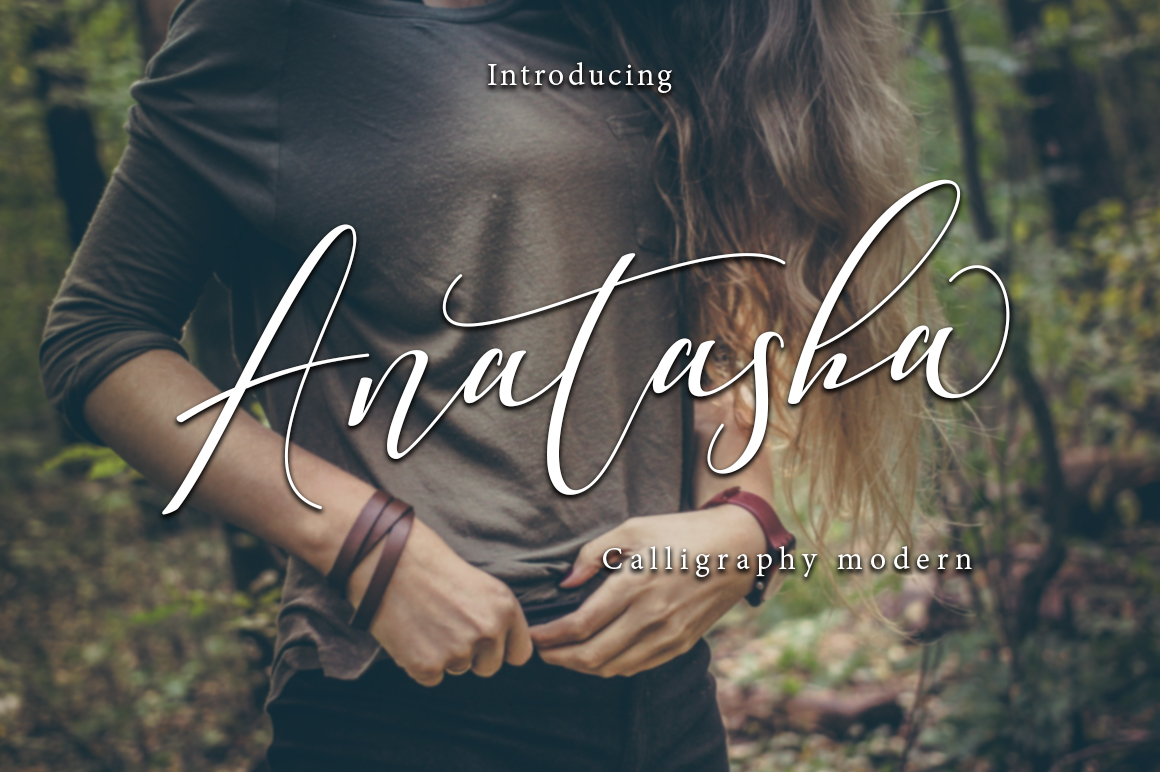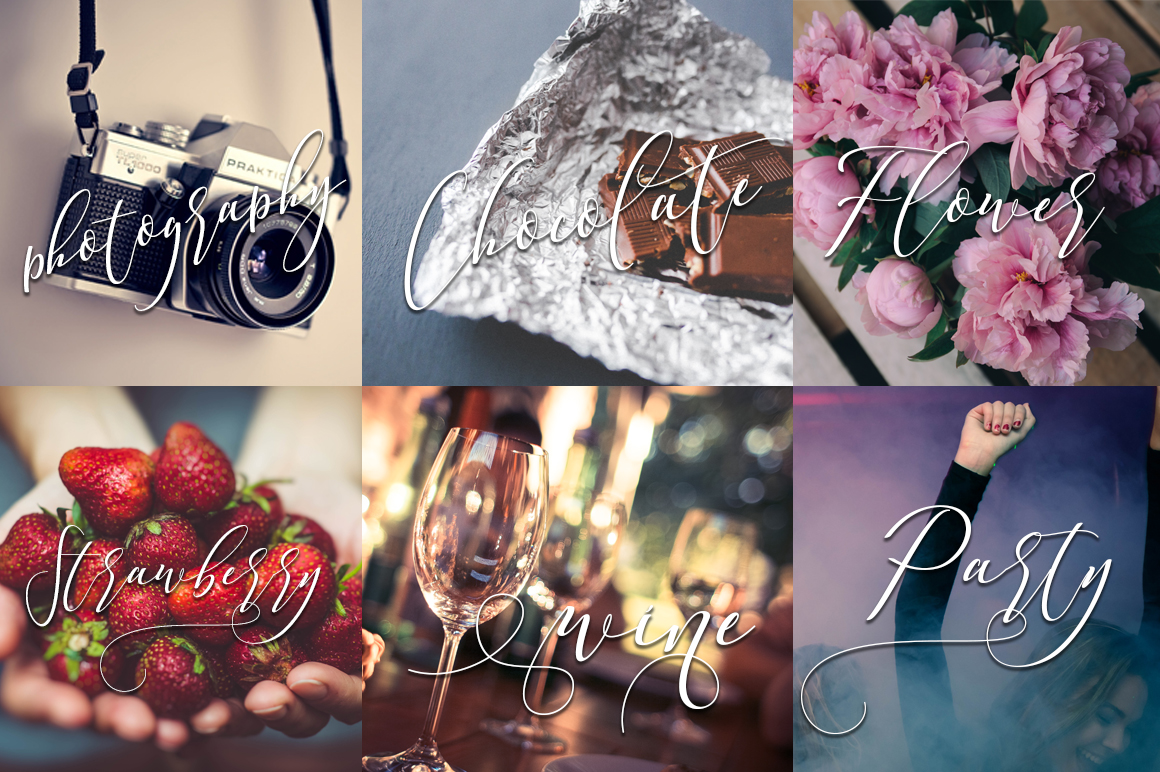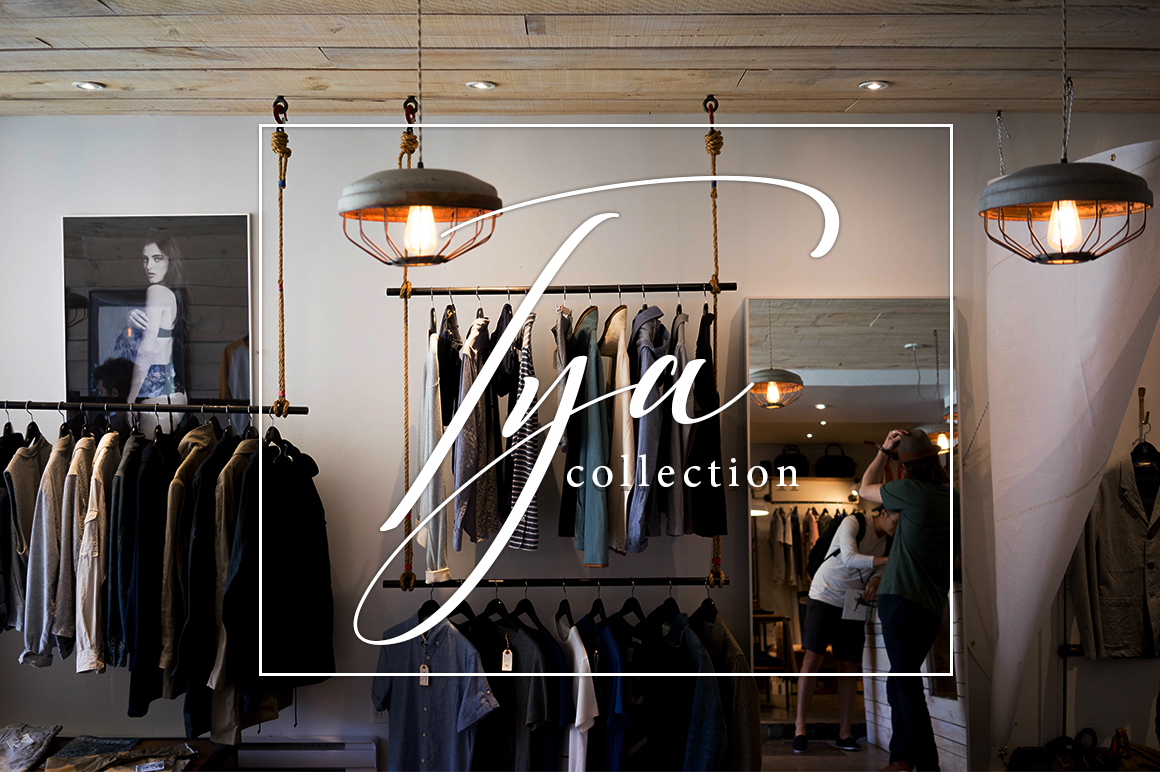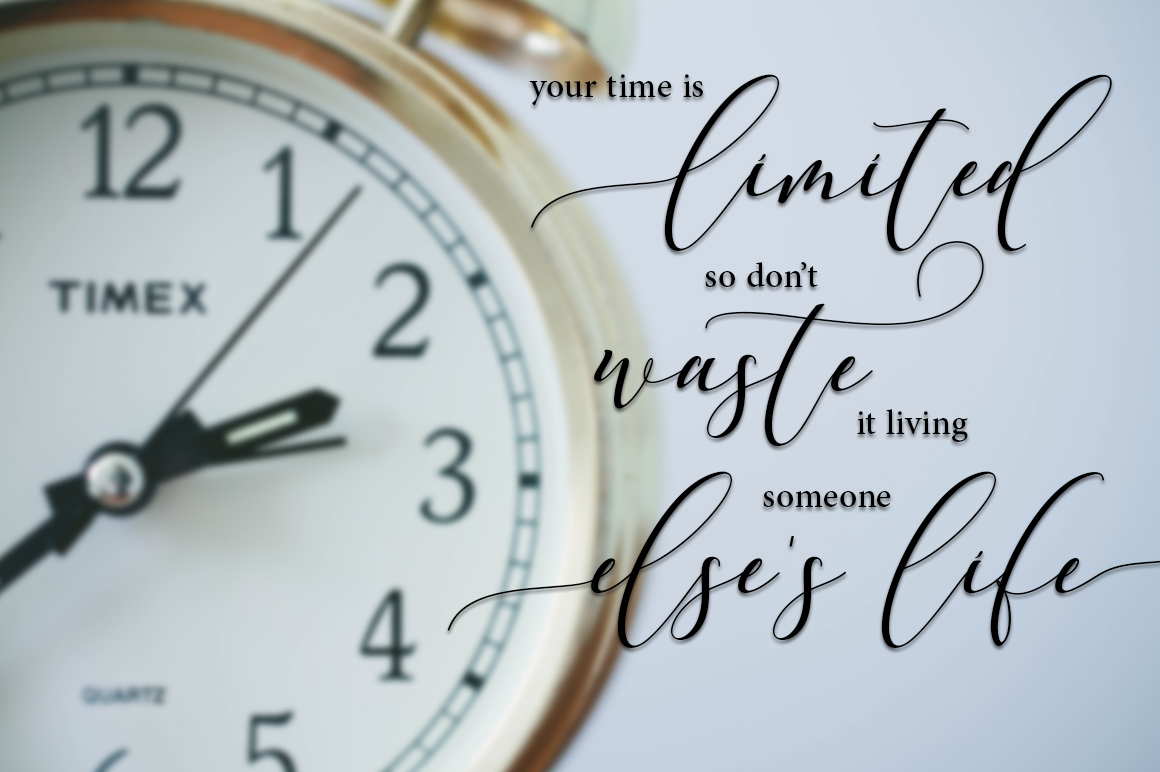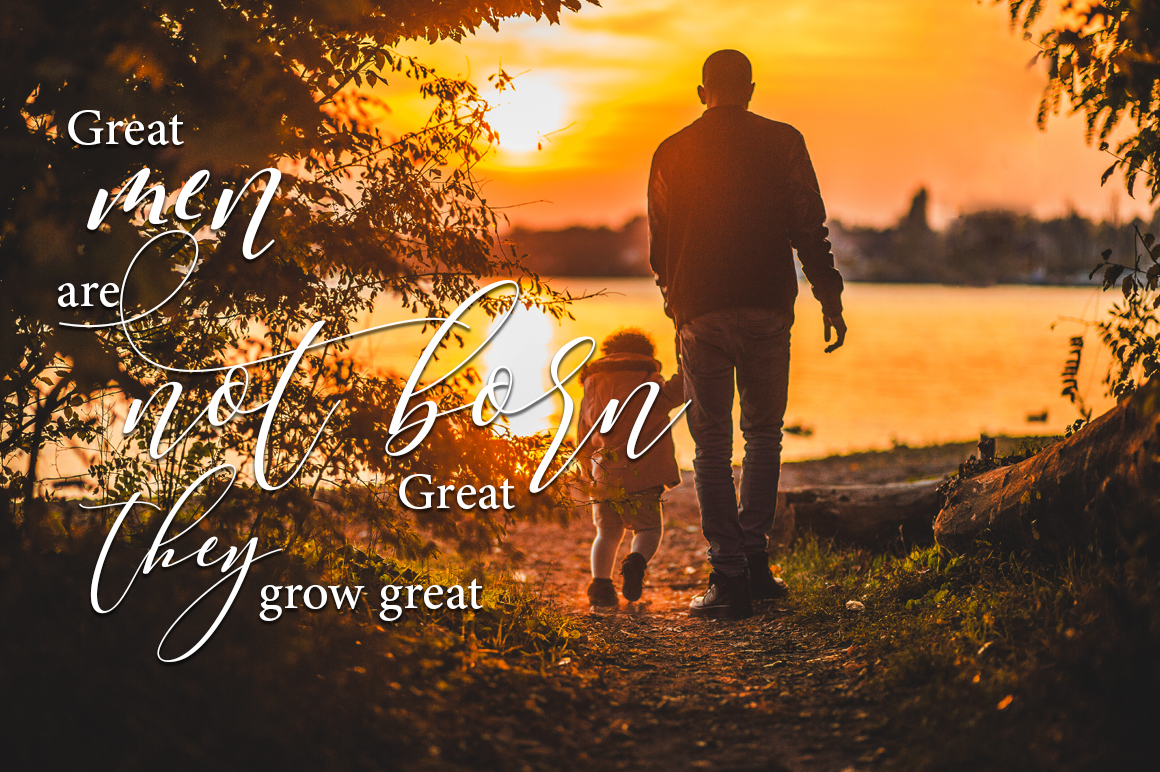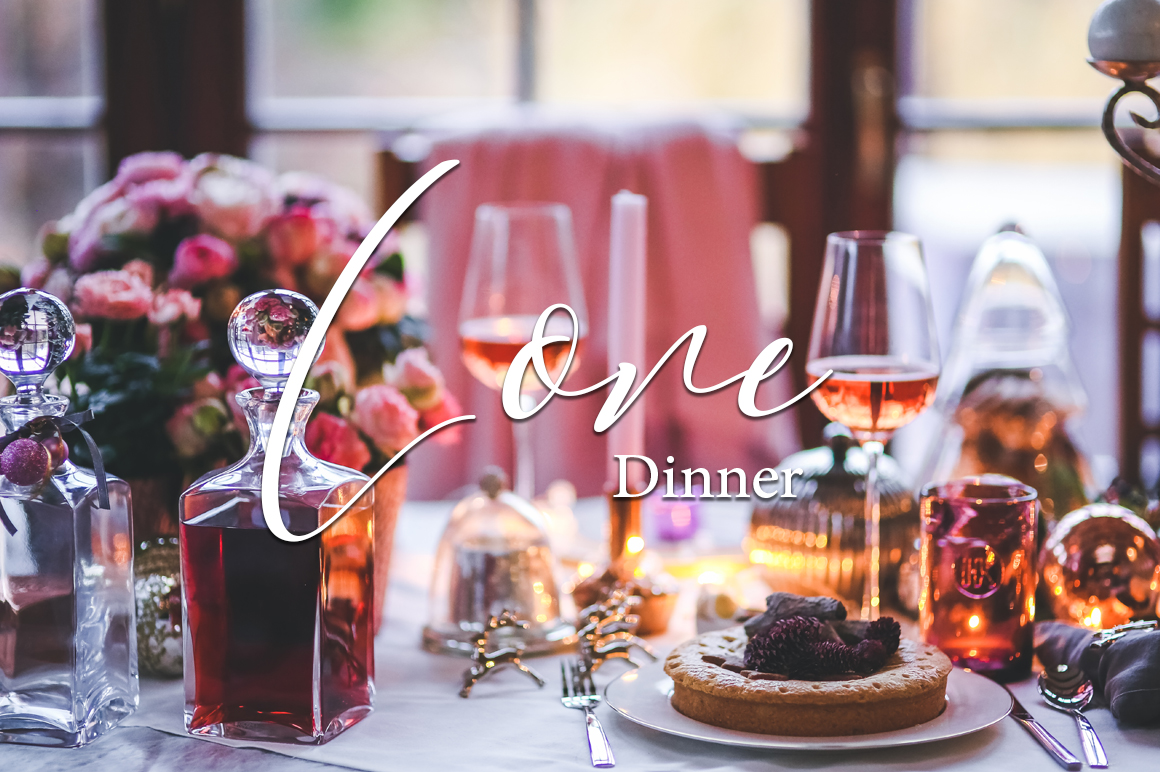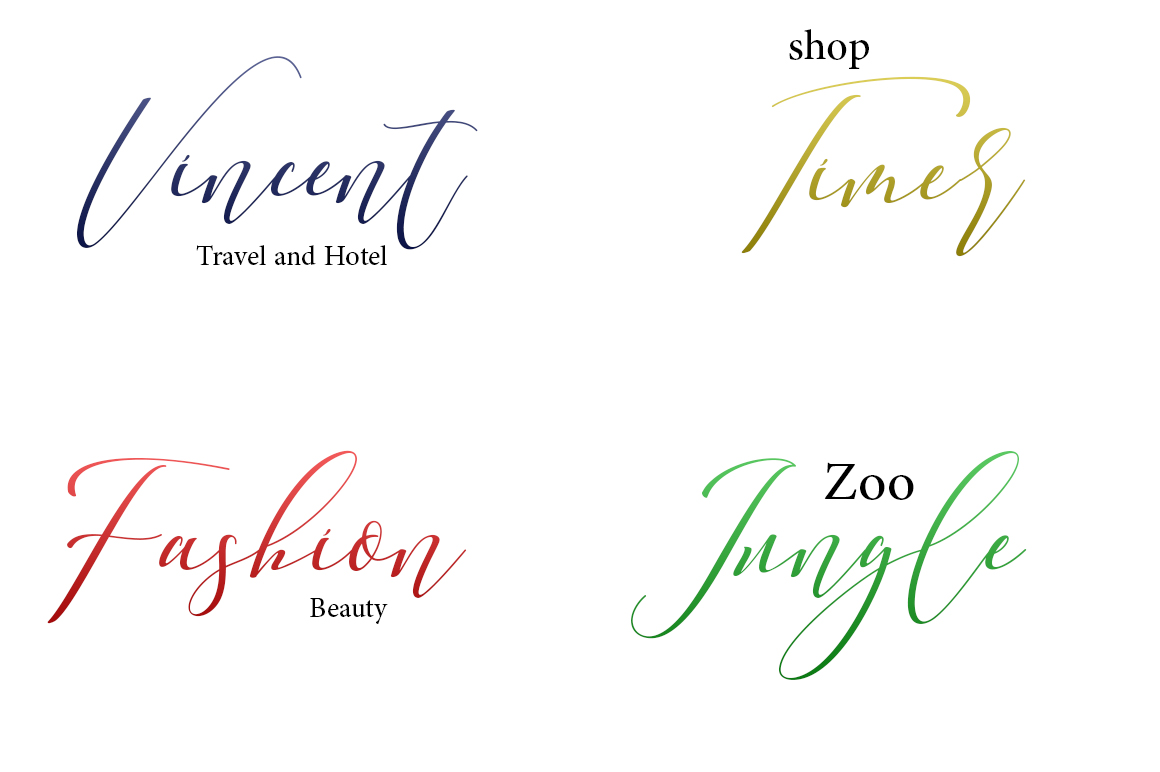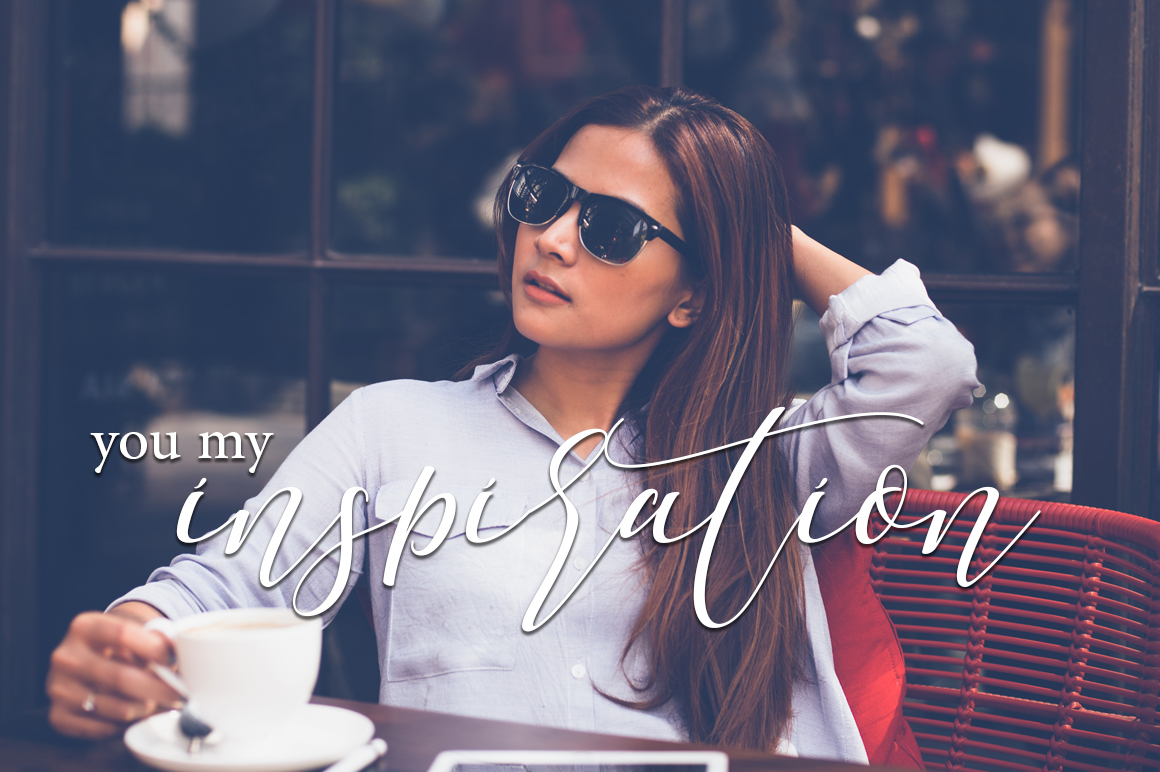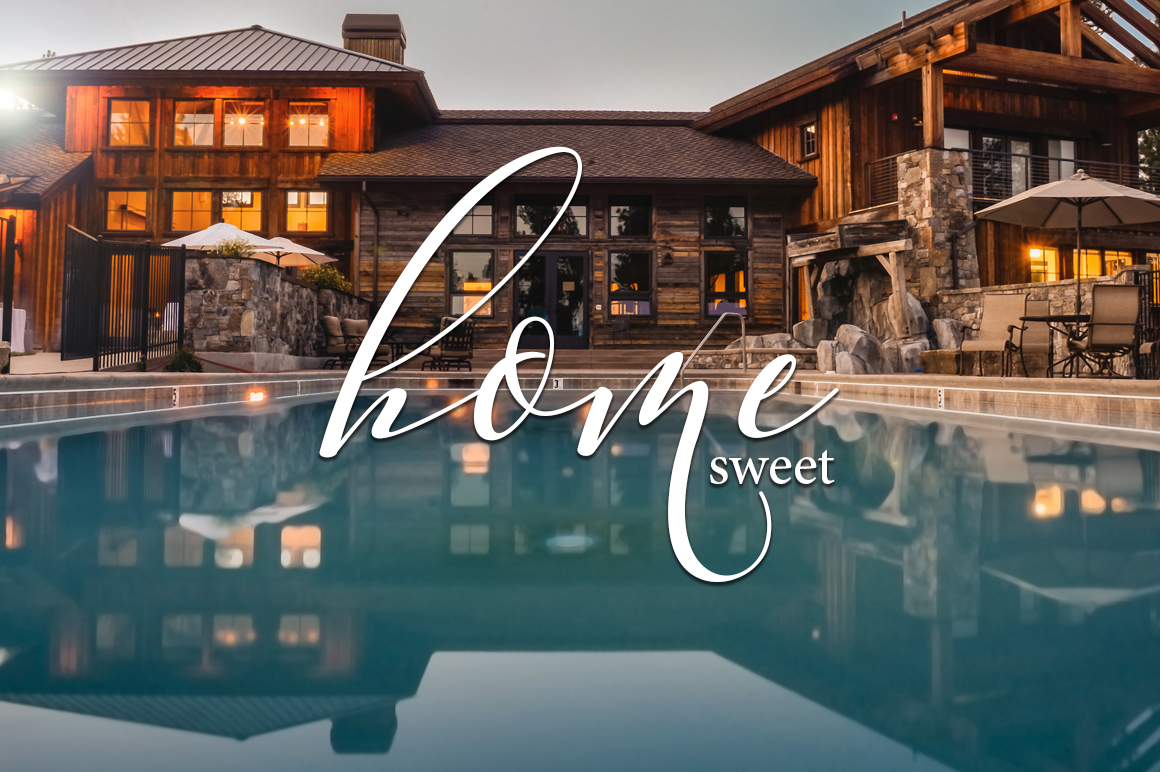
Anatasha Font
About Anatasha Font
Anatasha is a ultra light, modern calligraphy font that features 483 unique hand drawn glyphs.
This font can be used for many types of projects such as greeting cards, wedding invites & tahnk you cards, branding & business material, photo overlays and much more.